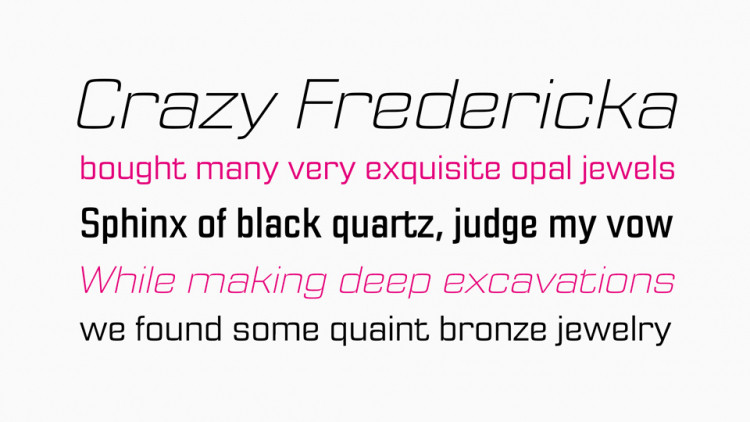
Cross Sans Serif Font
This is a modern, clean and simple sans serif font that combines a sturdy industrial feel with smooth, streamlined contours. It comes with a lot of alternates and ligatures.
With three styles, Cross is perfect for display use, posters and headlines, but also works well for text.